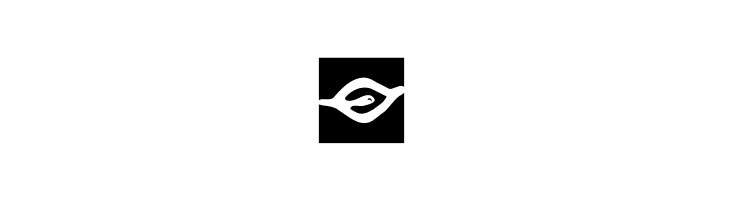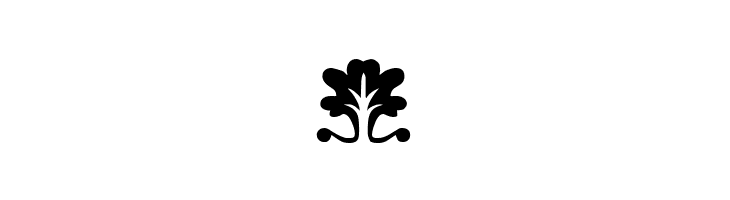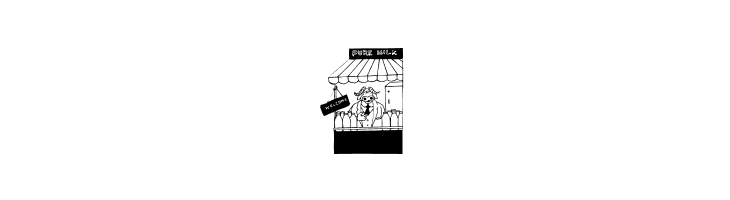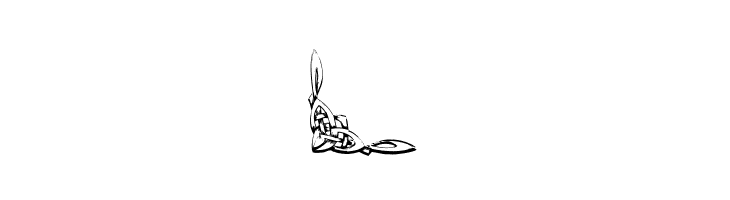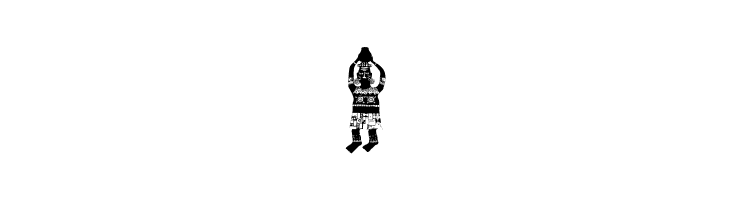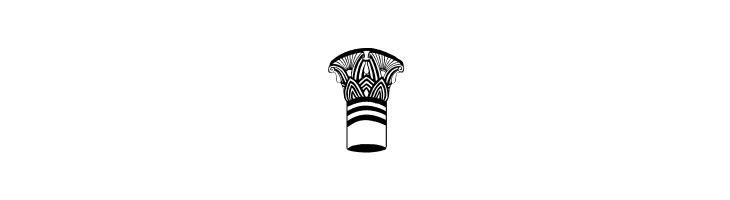
Square-framed floral and botanical decorative glyphs.
Cartoon animal dingbat font featuring humorous scenes.
Ornate, decorative frames and borders with vintage flourishes.
Ornamental dingbat font with floral and botanical motifs.
Comic-inspired dingbat font with retro illustrations for each character.
Decorative dingbat font with African art and cultural motifs.
Ornate dingbat font with illustrations of traditional arts and crafts.
A decorative dingbat font of geometric flag and template icons.